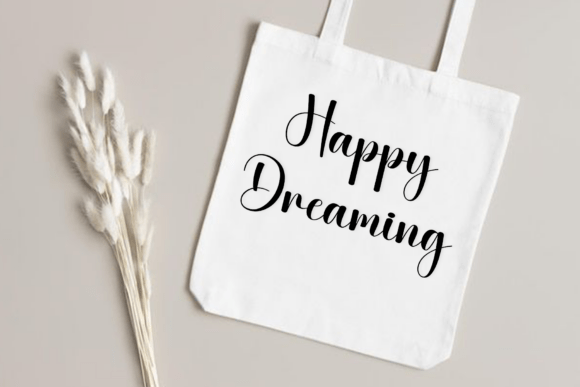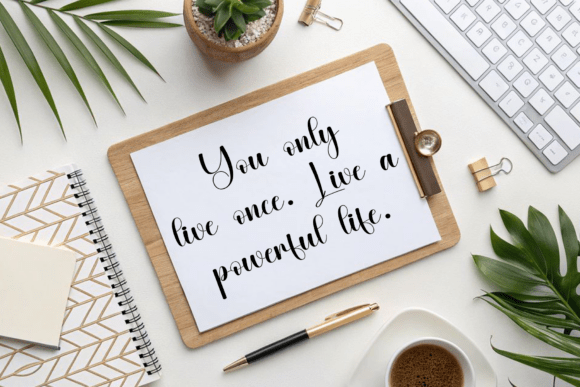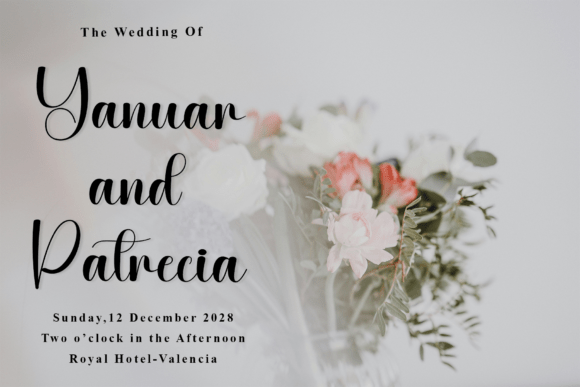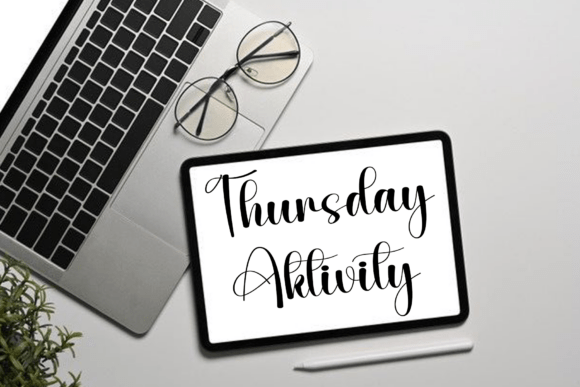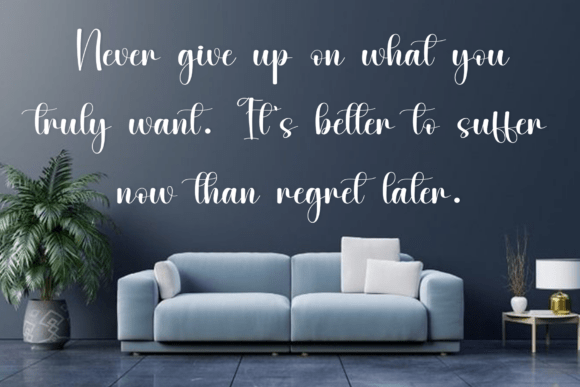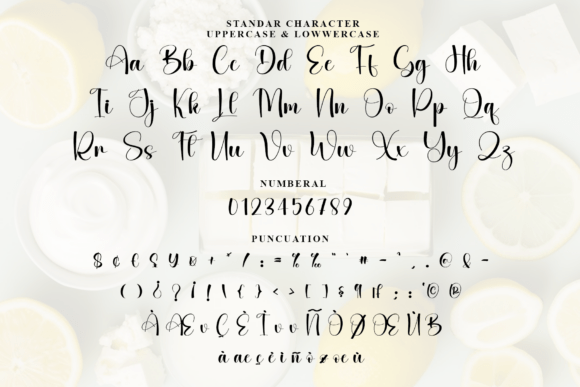
Introducing Buttermilk Font: Elevate Your Designs with Elegance and Sophistication
In the world of typography, few fonts manage to convey the essence of luxury and professionalism as effectively as Buttermilk Font. This stunningly elegant and highly refined modern handwritten script font is designed to bring a touch of high-end artistry to your branding, packaging, and design projects. With its dramatic contrast between thick downstrokes and delicate hairlines, beautifully integrated ligatures and swashes, Buttermilk Font is the perfect choice for designers and crafters looking to add a personalized and sophisticated touch to their work.
The Artistry of Buttermilk Font
Buttermilk Font is more than just a typeface – it’s a masterpiece of modern calligraphy. Its exquisite design embodies the skill and artistry of a professional calligrapher, delivering a unique and refined quality that is sure to impress. The font’s elegant and fluid strokes are meticulously crafted to create a sense of movement and harmony, making it ideal for use in high-end branding, advertising, and editorial design.
Key Features of Buttermilk Font
- Dramatic Contrast: Buttermilk Font features a striking contrast between thick downstrokes and delicate hairlines, creating a sense of drama and elegance.
- Beautiful Ligatures and Swashes: The font includes beautifully integrated ligatures and swashes that enhance its sophistication and refine its appearance.
- Modern Handwritten Script: Buttermilk Font is a modern handwritten script font that combines the personal touch of handwriting with the precision and consistency of digital typography.
- Luxurious and Personalized: The font’s elegant design and refined features make it perfect for high-end branding, packaging, and design projects that require a touch of luxury and sophistication.
Why Choose Buttermilk Font?
Buttermilk Font is an excellent choice for designers and crafters looking to elevate their designs with a touch of elegance and sophistication. Here are just a few reasons why:
- Versatility: Buttermilk Font is highly versatile and can be used in a wide range of design applications, from branding and packaging to editorial design and advertising.
- Uniqueness: The font’s elegant design and refined features make it stand out from more traditional typefaces, ensuring that your designs will be noticed and remembered.
- Professionalism: Buttermilk Font conveys a sense of professionalism and artistry, making it perfect for designers and crafters looking to create high-end designs that impress.
Using Buttermilk Font in Your Designs
Buttermilk Font is easy to use and can be incorporated into your designs in a variety of ways. Here are a few tips to get you started:
- Pair with Neutral Fonts: Pair Buttermilk Font with neutral fonts to create a striking contrast and add visual interest to your designs.
- Use for Headlines and Titles: The font’s elegant design and refined features make it perfect for use in headlines and titles, where it can add a touch of luxury and sophistication.
- Experiment with Ligatures and Swashes: Don’t be afraid to experiment with the font’s ligatures and swashes to add a personal touch to your designs.
Buttermilk Font is a stunningly elegant and highly refined modern handwritten script font that embodies professional artistry and sophistication. With its dramatic contrast, beautifully integrated ligatures and swashes, and luxurious design, it’s the perfect choice for designers and crafters looking to elevate their designs with a touch of high-end elegance. Whether you’re working on a branding project, packaging design, or editorial design, Buttermilk Font is sure to impress.